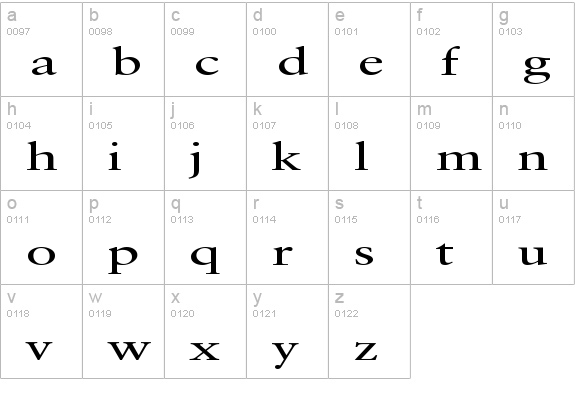
Garrick Extended Normal Font Details
Garrick Extended Normal is the standard, neutral, extended-width variant in the Garrick typeface family \xE2\x80\x94 well suited to general body text, paragraphs, and standard typographic work.
Garrick Extended Normal font is a versatile and modern typeface that exudes elegance and sophistication. With its clean lines and balanced proportions, this font is perfect for a wide range of design projects, from branding to editorial design. The extended character set allows for seamless integration of different languages and special characters, making it a practical choice for international projects. What sets Garrick Extended Normal font apart is not just its stylish design, but also the fact that it is available for free download at FontsMarket.com. This means that you can easily access this high-quality font without any cost, making it a valuable addition to your font library. Whether you're working on a professional project or a personal creative endeavor, Garrick Extended Normal font is sure to elevate your design and make a lasting impression.